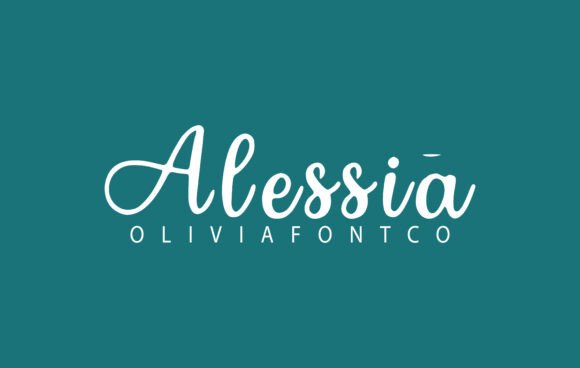
Introducing Alessia Font: The Sweet and Friendly Handwritten Font
When it comes to choosing the right font for your design project, the options can be overwhelming. However, if you’re looking for a font that is both sweet and friendly, Alessia Font is an excellent choice. This beautiful handwritten font is perfect for a wide range of designs, from branding and advertising to packaging and digital media. In this article, we’ll take a closer look at Alessia Font and explore its unique features, benefits, and uses.
What is Alessia Font?
Alessia Font is a modern handwritten font that is designed to be both elegant and approachable. Its natural and unique style makes it incredibly fitting to a large pool of designs, from feminine and playful to sophisticated and professional. The font is characterized by its smooth and flowing lines, rounded edges, and subtle imperfections that give it a human touch.
Key Features of Alessia Font
Unique and Handwritten Style
Alessia Font boasts a distinctive handwritten style that sets it apart from other fonts. Its unique and natural look makes it perfect for designs that require a personal touch.
Versatile and Adaptable
One of the standout features of Alessia Font is its versatility. It can be used in a wide range of designs, from elegant and sophisticated to playful and whimsical.
Easy to Read and Understand
Alessia Font is designed to be easy to read and understand, making it perfect for body text, headings, and titles.
Benefits of Using Alessia Font
Adds a Personal Touch to Your Designs
Alessia Font adds a personal touch to your designs, making them more relatable and engaging to your audience.
Enhances Brand Identity
Alessia Font can help enhance your brand identity by adding a unique and distinctive touch to your branding materials.
Increases Readability
Alessia Font’s clear and easy-to-read design makes it perfect for body text, increasing readability and comprehension.
Uses of Alessia Font
Branding and Advertising
Alessia Font is perfect for branding and advertising materials, such as logos, brochures, and flyers.
Packaging Design
Alessia Font can add a touch of elegance and sophistication to packaging design, making products stand out on store shelves.
Digital Media
Alessia Font is also suitable for digital media, including website design, social media graphics, and email marketing campaigns.
Tips for Using Alessia Font
Pair with Other Fonts
Alessia Font can be paired with other fonts to create a unique and visually appealing combination.
Experiment with Colors and Textures
Alessia Font can be used with a range of colors and textures to add depth and interest to your designs.
Use for Headings and Titles
Alessia Font is perfect for headings and titles, adding a touch of elegance and sophistication to your designs.
In conclusion, Alessia Font is a beautiful and versatile handwritten font that is perfect for a wide range of designs. Its unique and natural style makes it incredibly fitting to a large pool of designs, from feminine and playful to sophisticated and professional. With its ease of use, versatility, and readability, Alessia Font is an excellent choice for designers looking to add a personal touch to their designs.